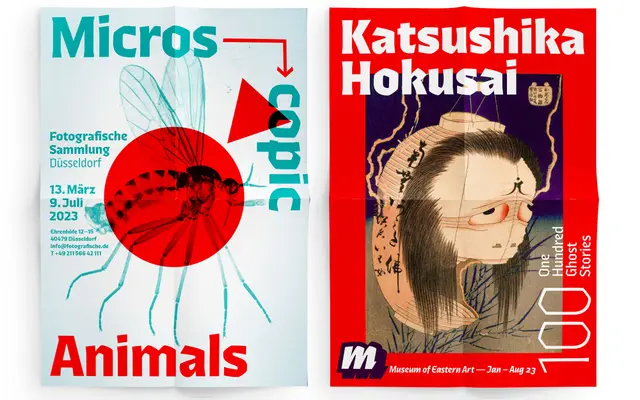
Ferryman
A nine-weight blackletter family that substitutes unfamiliar historical characters with more legible Antiqua forms to make the genre accessible to contemporary readers.
Ferryman modernises the blackletter genre by swapping out characters that would trip up a contemporary audience for adapted Antiqua letterforms or letters drawn from other historical scripts. Nine weights run from Thin to Black, each with a matching italic, giving the family a range suited to both headline work and longer passages. Each style carries 590 glyphs with four figure sets and broad currency support, covering Western, Eastern and Central European languages.
Ferryman is explicitly described as a blackletter typeface, though it replaces unfamiliar blackletter characters with adapted Antiqua and historical script letterforms to improve legibility for modern readers, placing it in a contemporary or accessible strand of the blackletter tradition.